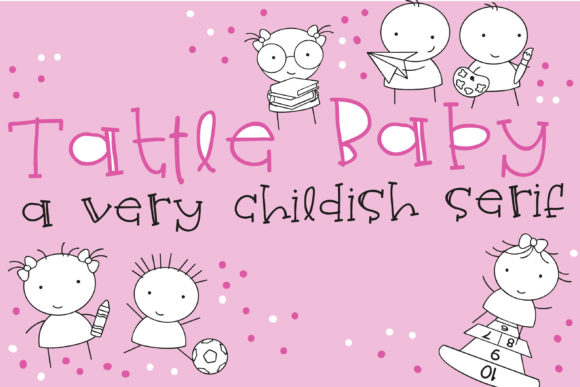
Journey into the world of Tattle Baby Font, where stories come alive with a touch of whimsy and youthful charm. This enchanting serif font, meticulously crafted by Illustration Ink, is designed to capture the boundless imagination of young readers, making every word a delightful adventure.
Tattle Baby Font dances across the page with its playful, bouncy strokes, adding a vibrant energy to any project. Its unique letterforms, reminiscent of a child's playful scribbles, create a sense of wonder and discovery, captivating young minds as they embark on their reading journeys.
The Tattle Baby Font is the perfect font for projects that demand a cheerful, inviting atmosphere. Whether it's a children's book that transports readers to magical lands, a school project that sparks curiosity, or a personal journal that captures the innocence of childhood, Tattle Baby Font brings a touch of joy and excitement to every page.
With its easy-to-read design, Tattle Baby Font ensures a smooth and enjoyable reading experience, even for young readers who are just beginning to explore the world of words. Its carefully crafted letterforms and generous spacing make it easy for young eyes to follow along, fostering a love of reading that will last a lifetime.
Tattle Baby Font is not just a font; it's an invitation to explore the boundless realms of imagination. It's a font that brings stories to life, making every word a stepping stone towards new discoveries and dreams. So let your creativity soar and immerse yourself in the world of Tattle Baby Font, where every page is a magical adventure waiting to be unfolded.